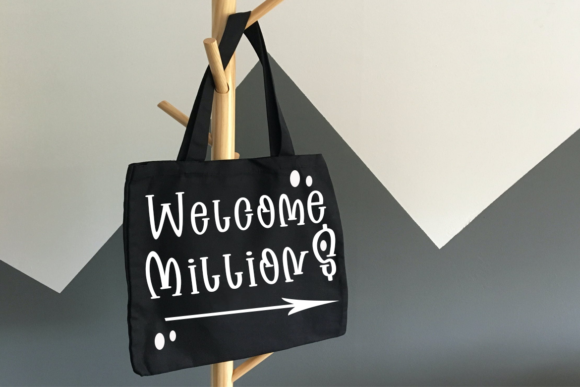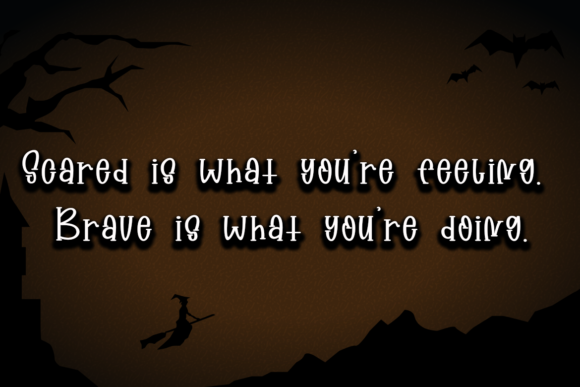
Magician Font
db-ku.com - Script & Handwritten -- Magician is a beautiful display font. It will add an incredibly joyful touch to your designs. Add this lovely font to each of your creative ideas and notice how it makes them stand out!